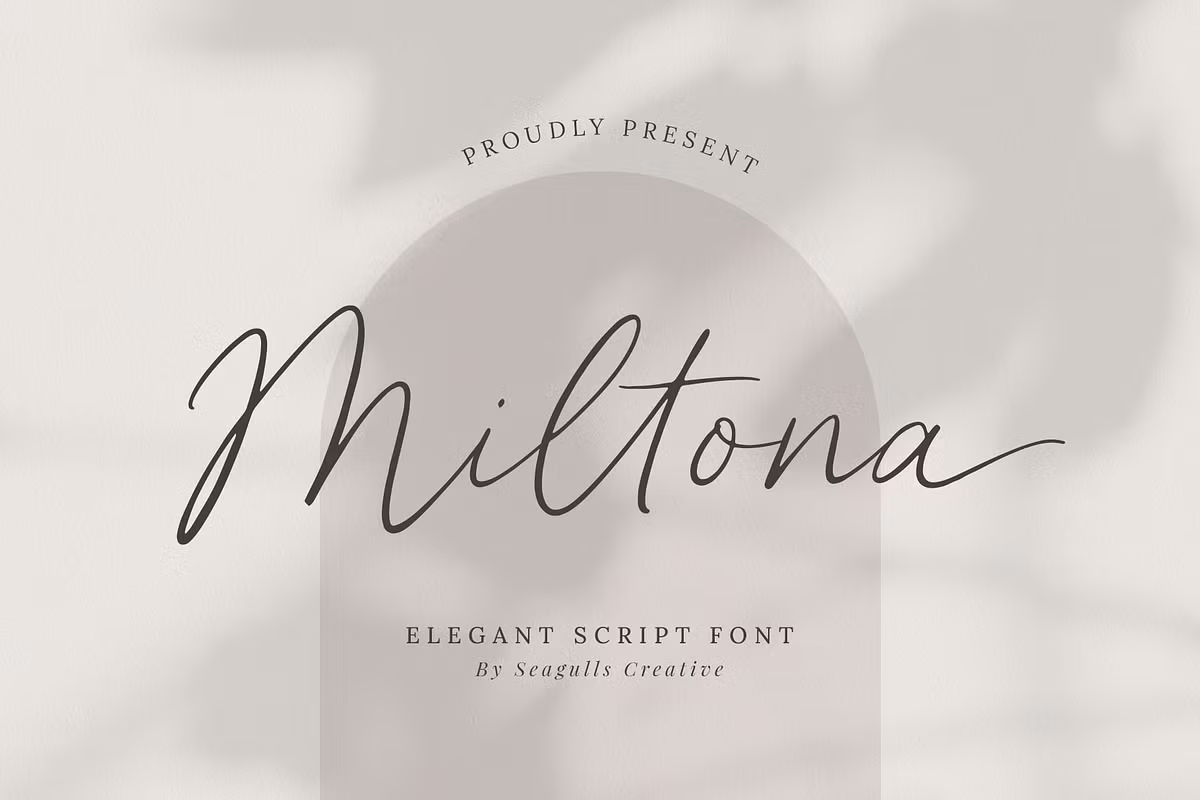
Miltona Elegant Script Font Free Download
Miltona Elegant Script Font Free Download is a beautifully crafted typeface that combines the elegance of modern calligraphy with a classic script design. Perfect for wedding invitations, logos, branding, and other high-end creative projects, Miltona adds a touch of sophistication and style. Its smooth, flowing letterforms bring a personal and refined feel to your designs, making it ideal for projects that require an elegant and timeless look.